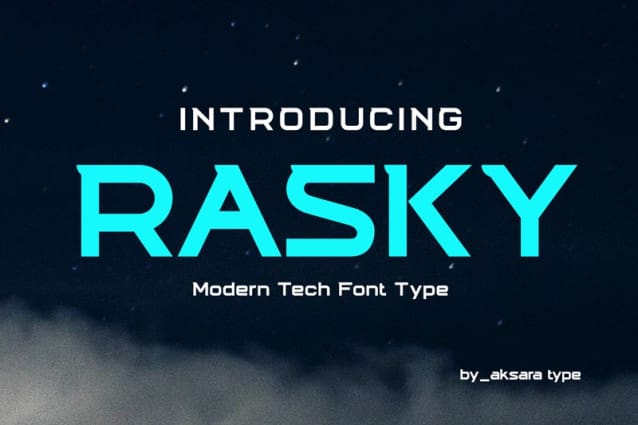
Rasky Font
Rasky Font is a bold, modern sport-style font. No matter the topic, this font will be an incredible asset to your fonts’ library, as it has the potential to elevate any creation.
Aksara Type Studio